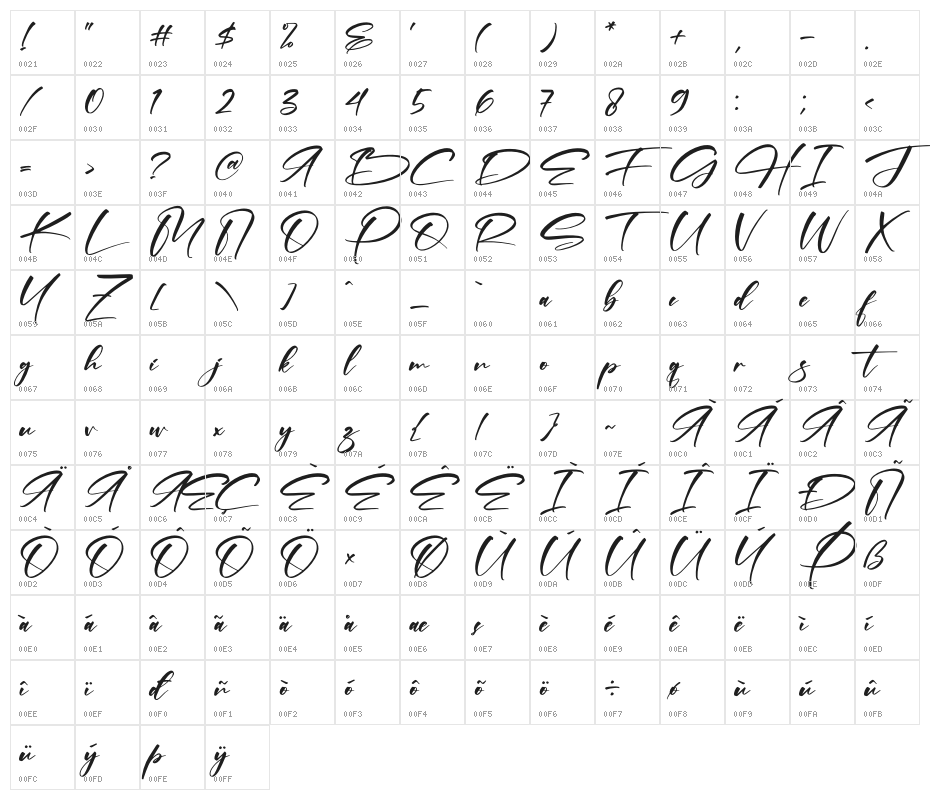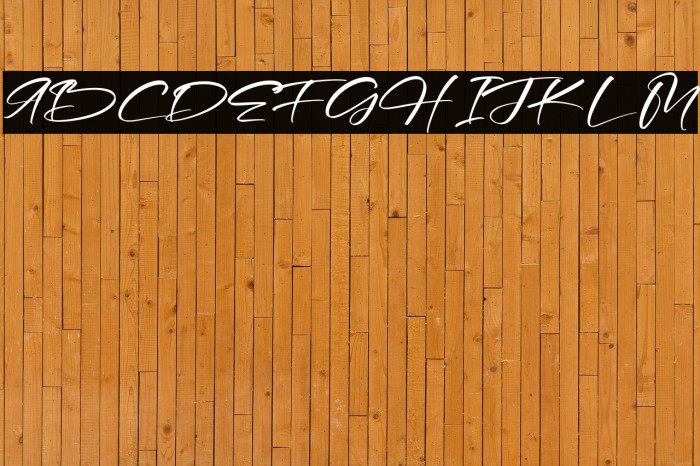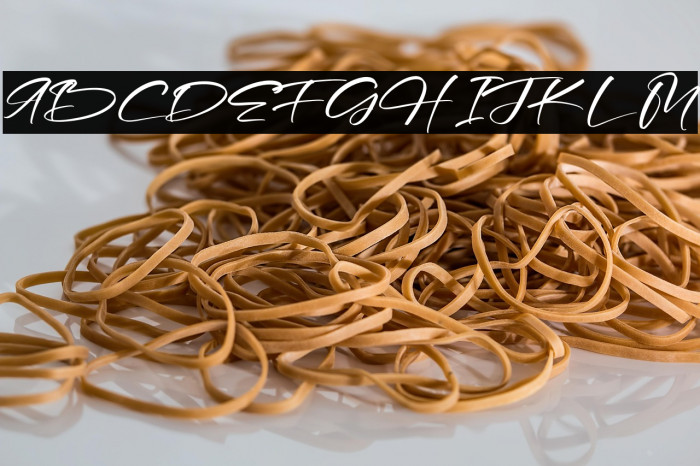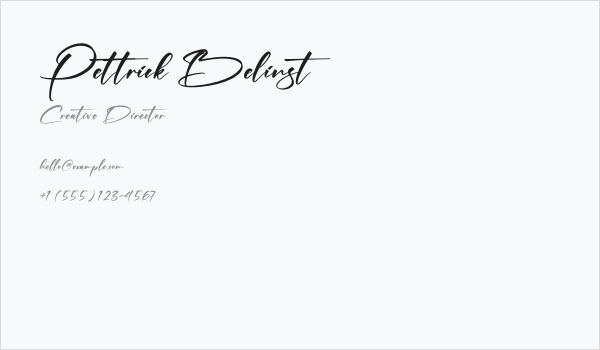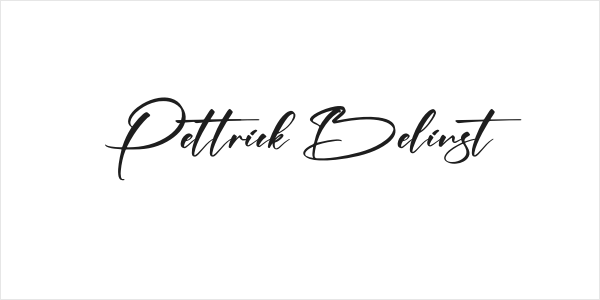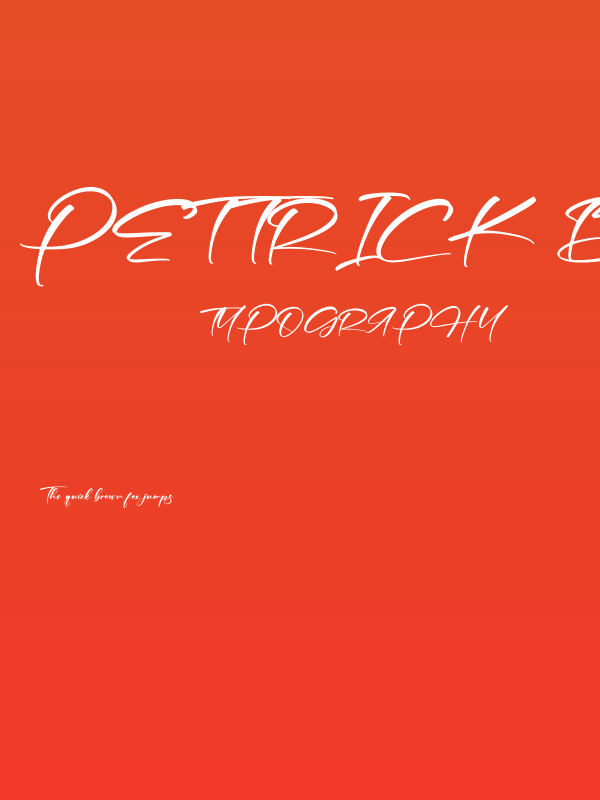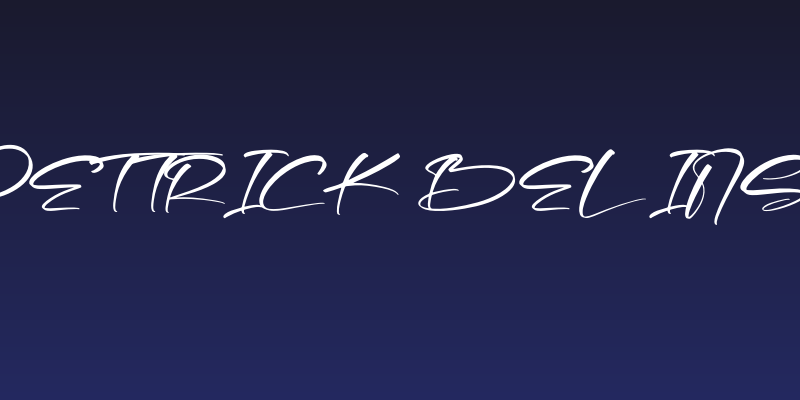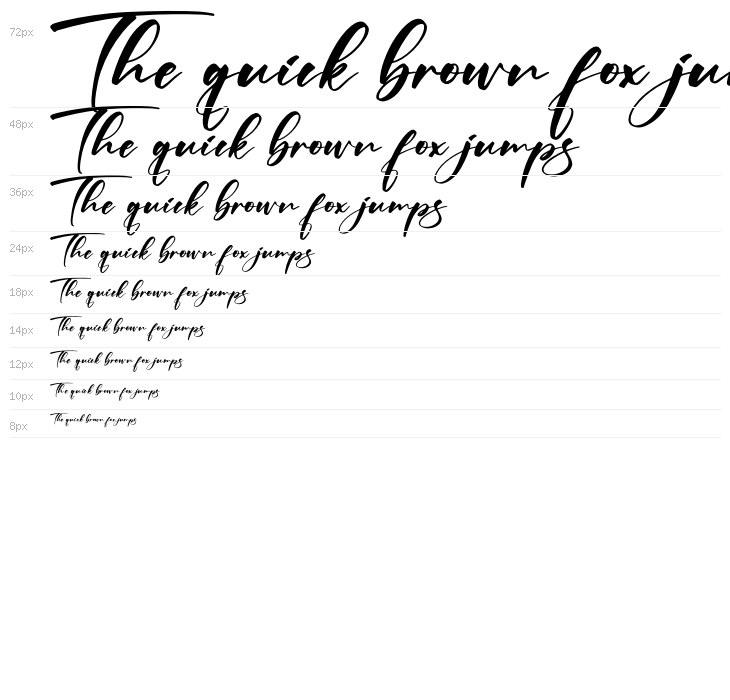
Pettrick Belinst Font
Pettrick Belinst Description
This font exudes a dynamic and elegant script style, characterized by its fluid and cursive strokes. The uppercase letters are slightly more elongated and connected, giving a sense of continuity and flow. The lowercase letters maintain a consistent rhythm, with some characters featuring distinctive loops and swashes that add a touch of sophistication. The numerals are bold and maintain the script style, ensuring they blend seamlessly with the alphabet. Special characters are thoughtfully designed to match the overall aesthetic, making this font versatile for various uses.
| Proposed Projects | Ideal for wedding invitations, branding projects, elegant logos, and stylish packaging designs. |